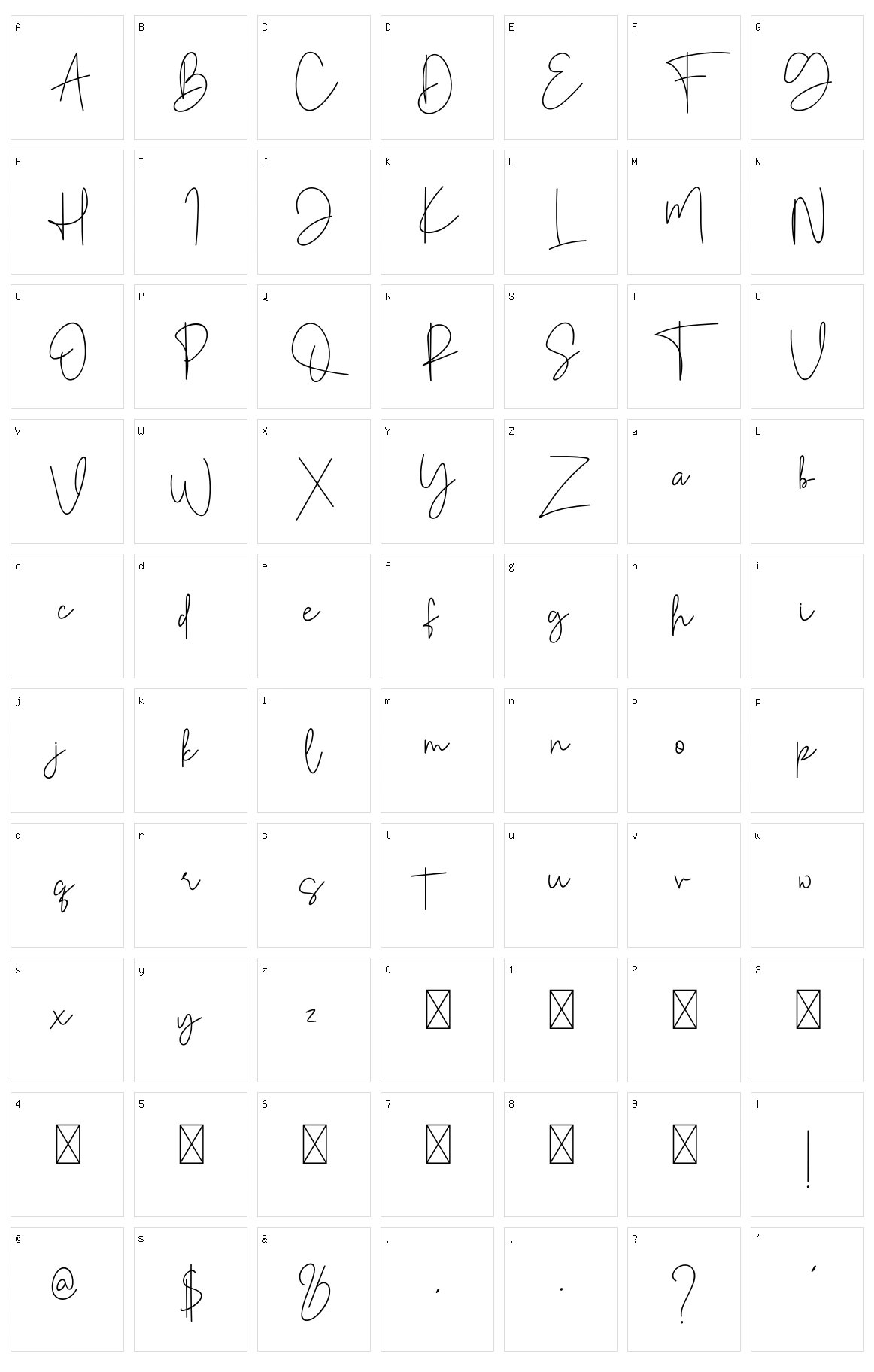
The free font Golden Mind is carefully designed by Rantautype, showcasing a thoughtful balance of creativity and usability and falls under the Script font style. When you download the ZIP file, it contains only 39.11 KB of font files, making it lightweight and quick to download. Please review the license details below to understand permitted usage and distribution rights. If license information is not available, we recommend using this font for personal projects only or contacting the author directly for commercial usage permissions.